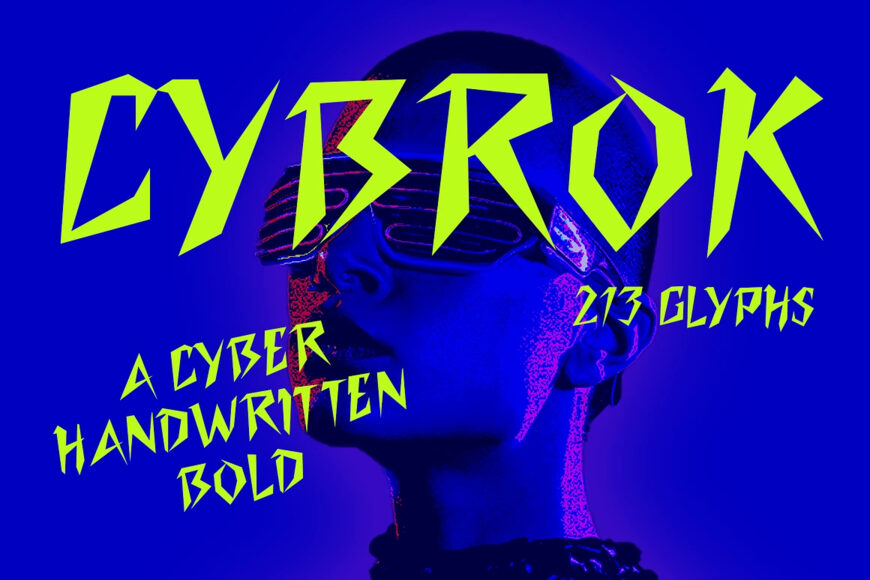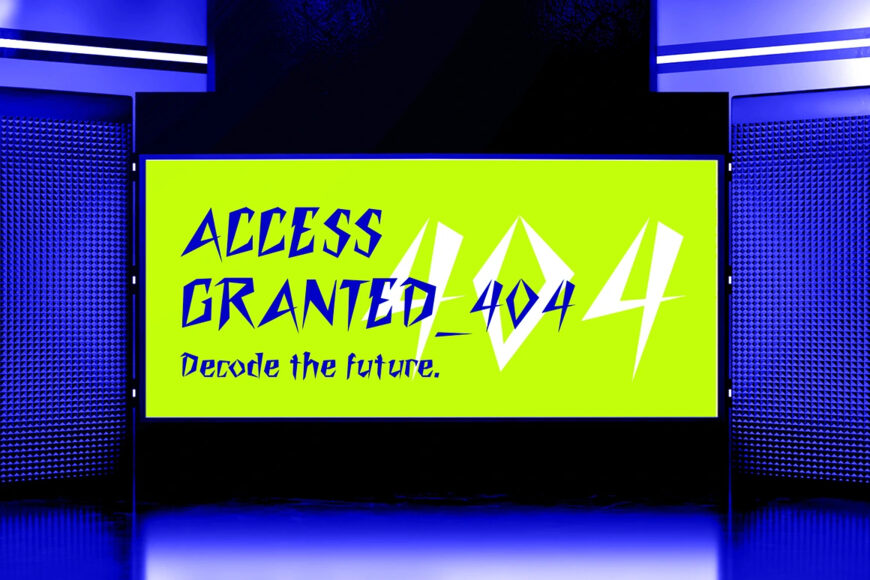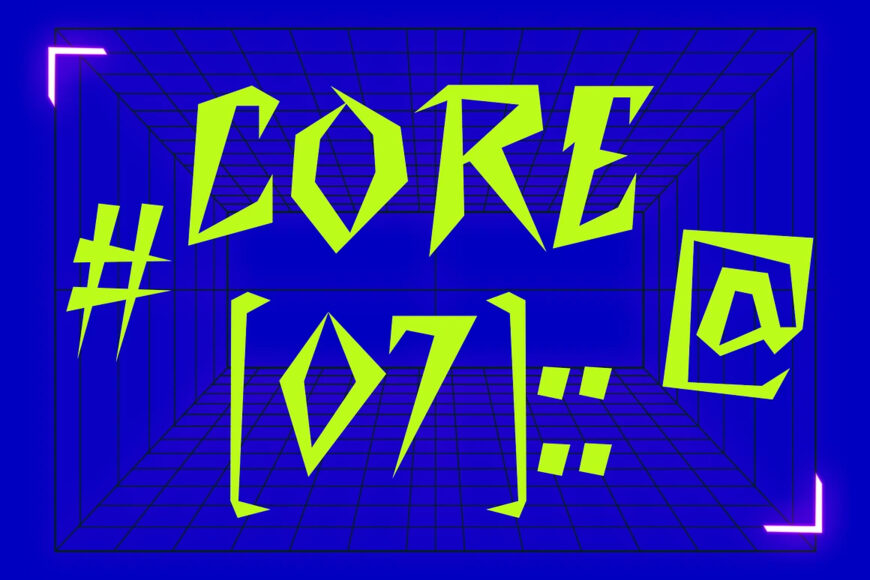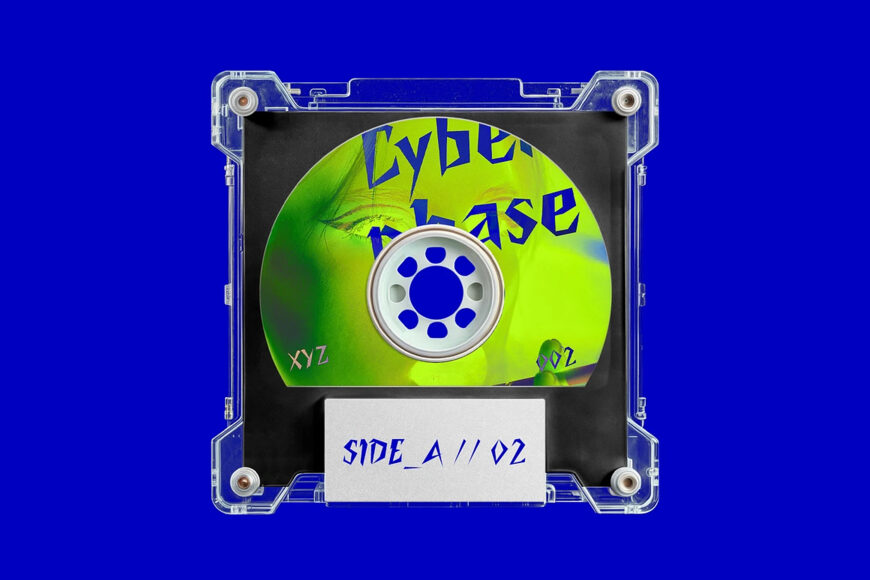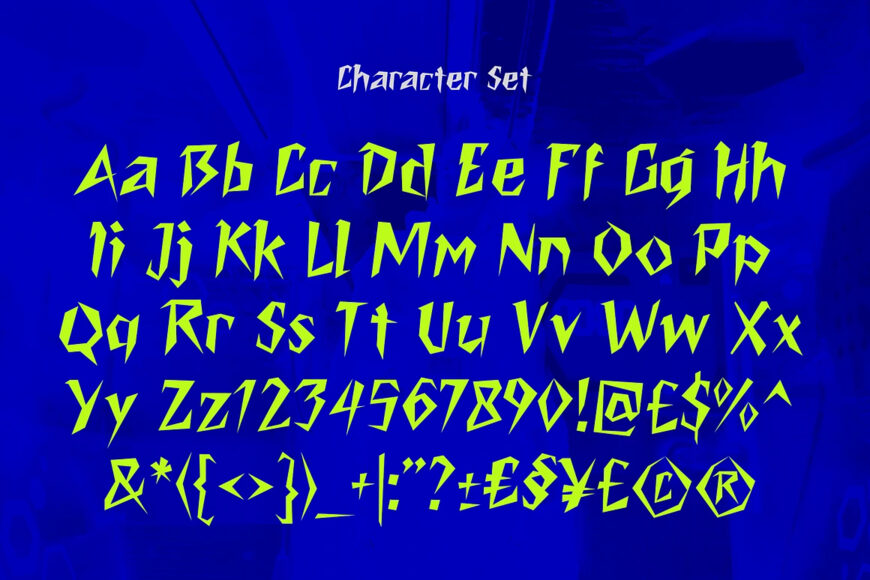
Cybrok is a cyber handwritten bold font that blends futuristic energy with a raw, rebellious edge. Featuring bold, sharp letterforms inspired by cyberpunk aesthetics, this font is perfect for gaming, technology, sci-fi, branding, posters, streetwear, logos, album covers, and digital designs. Its unique cyber, punk, and handwritten style creates a powerful, high-impact look that stands out in any modern project.